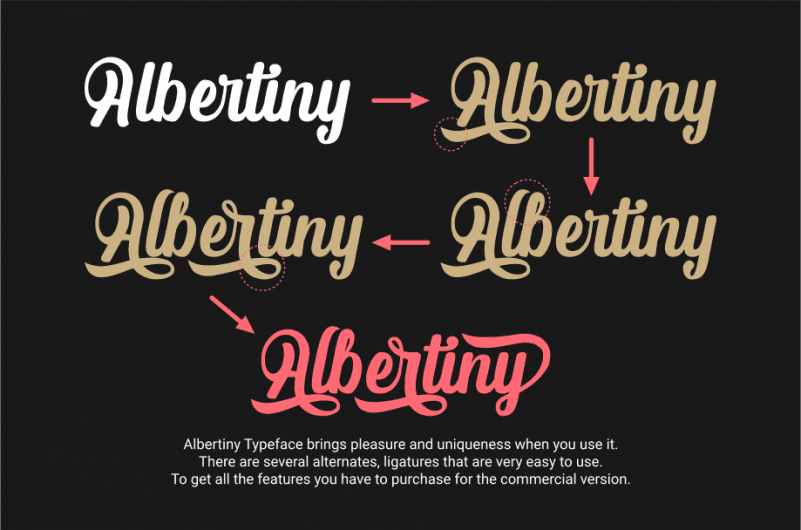
Albertiny Calligraphy Font
Albertiny a stylish modern calligraphy script font.
Albertiny Calligraphy Font is perfectly suited to signature, stationery, logo, typography quotes, magazine or book cover, website header, clothing, branding, packaging design and more.